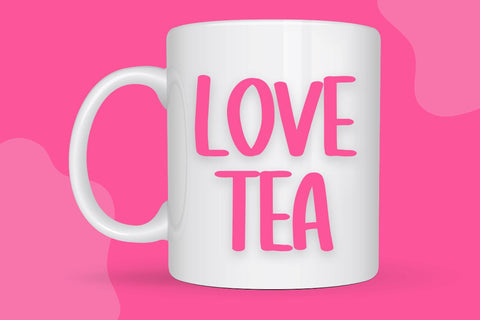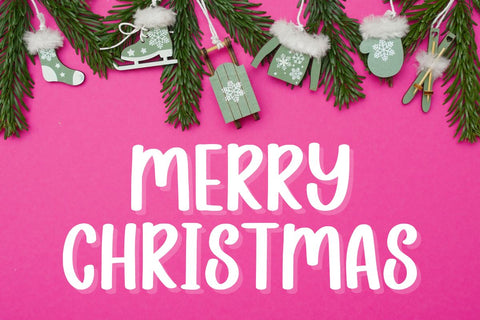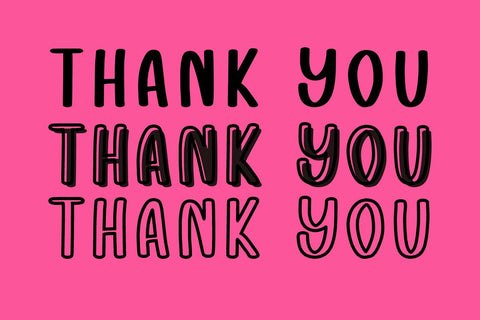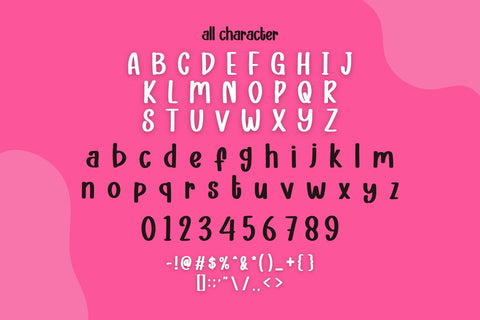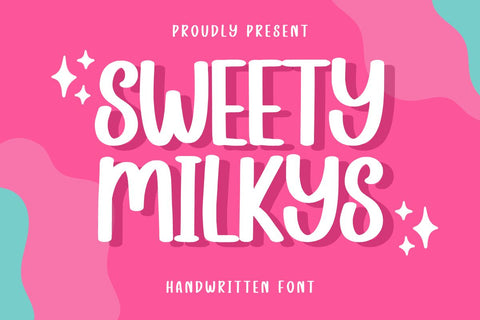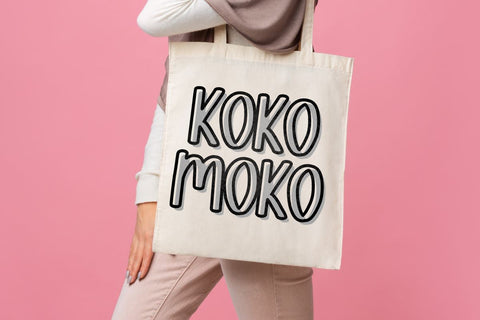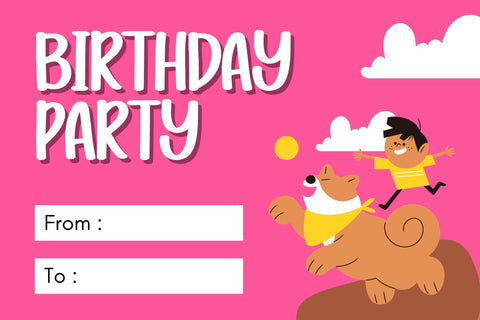
Sweet Milkys - Cute Handwritten Font
Hi, Introducing Sweet Milkys - Cute Handwritten Font
Cute Handwritten Font with cute and fun style. This font is cool for quotes, greeting cards, tote bags, t-shirts, mugs, etc.